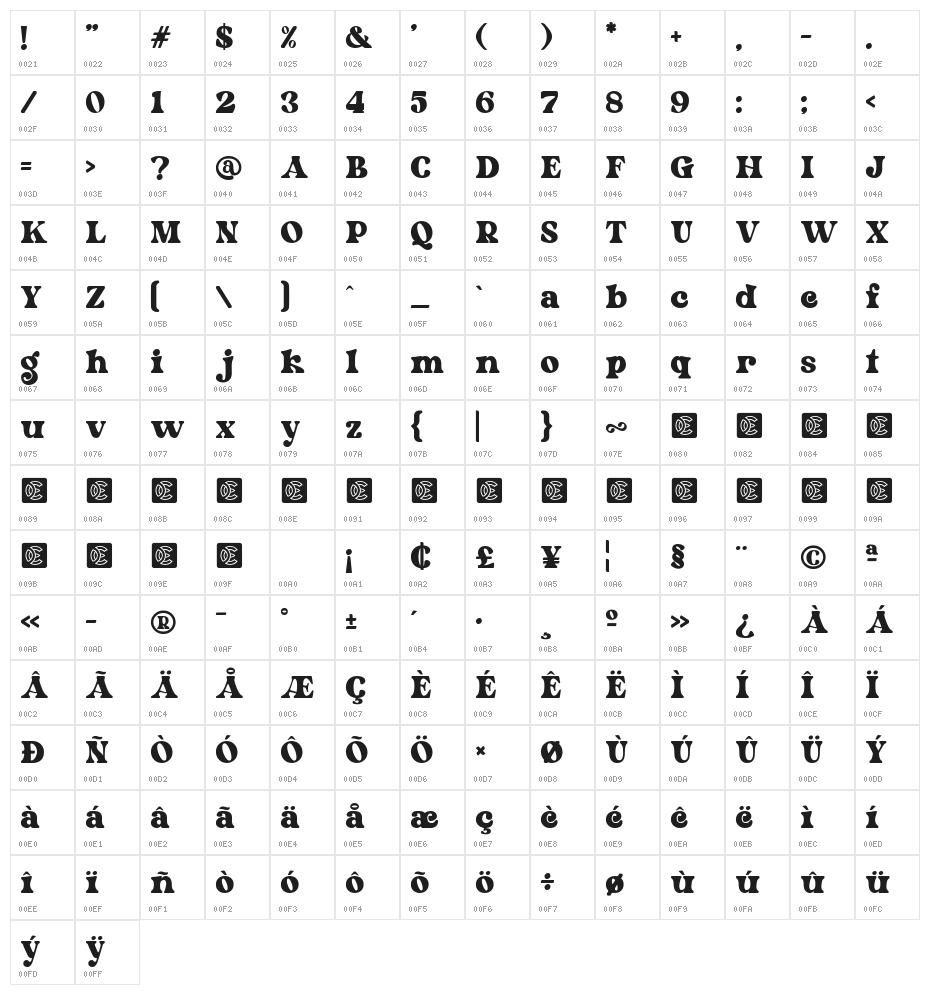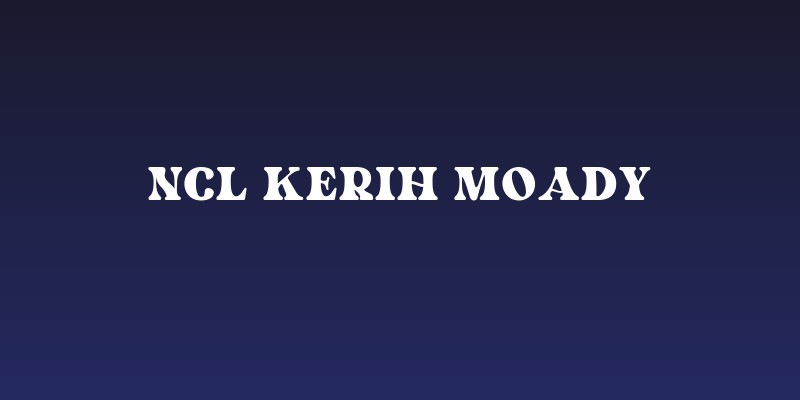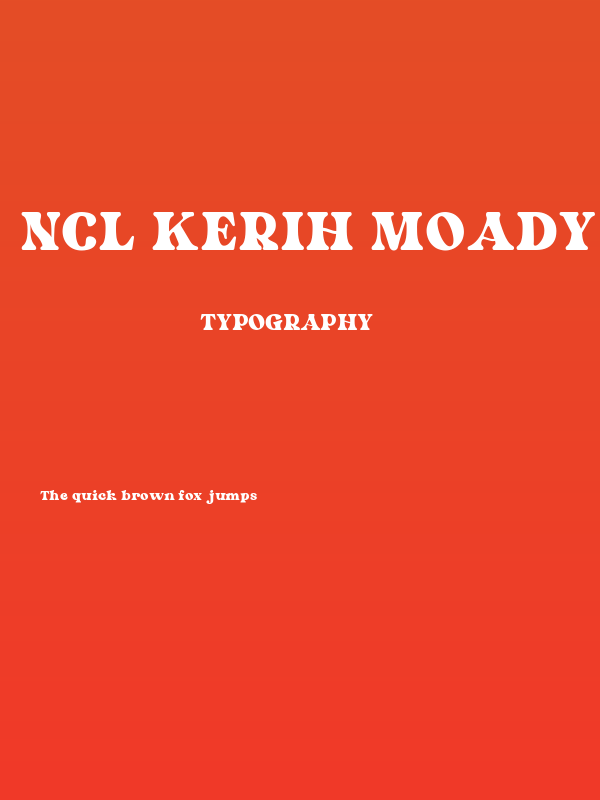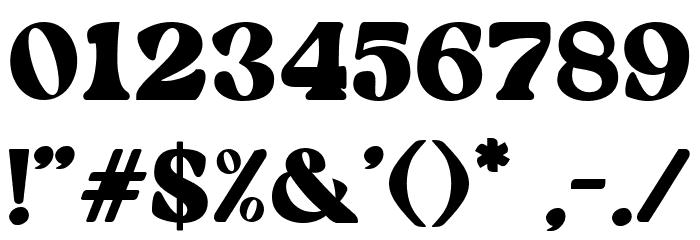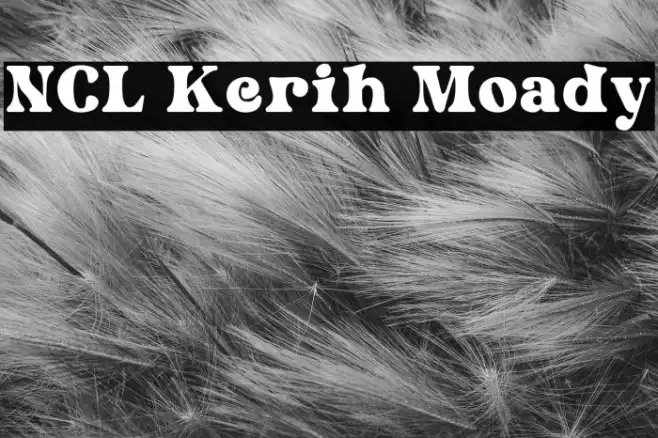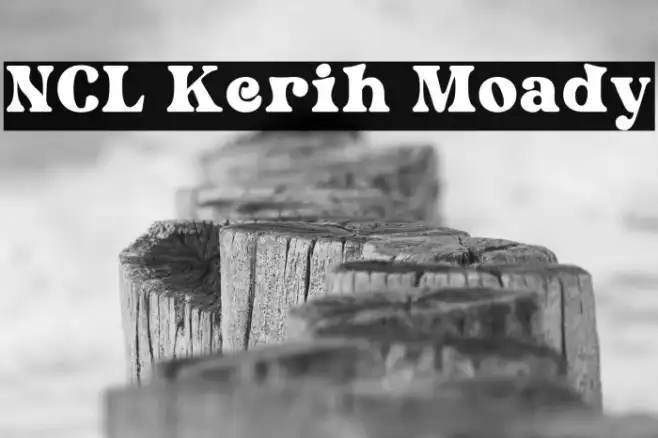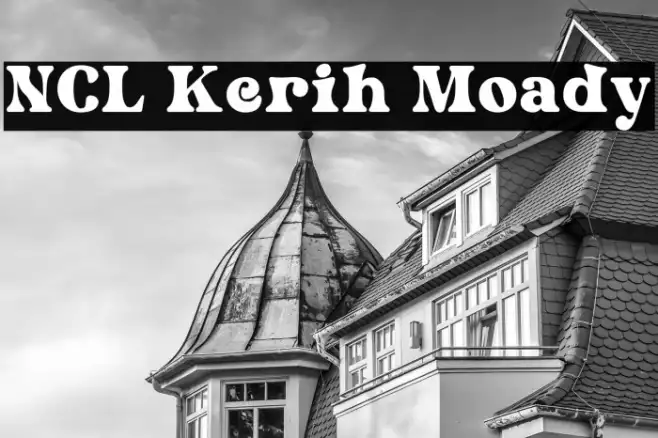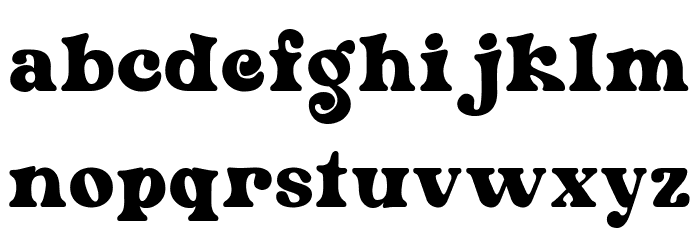
NCL Kerih Moady Font
NCL Kerih Moady Description
This font features a bold and decorative style with pronounced serifs and a playful, whimsical character. The uppercase letters are robust and commanding, while the lowercase letters maintain a consistent weight, adding to the font's cohesive appearance. The numerals are equally bold, ensuring they stand out in any composition. Special characters are designed with the same decorative flair, making them suitable for creative and eye-catching designs. The overall design is reminiscent of vintage typefaces, yet it maintains a modern twist that makes it versatile for various applications.
| Overall Style | Vintage, Decorative |
| Proposed Projects | Ideal for poster designs, branding projects, book covers, and any creative work that requires a bold and decorative typeface. |